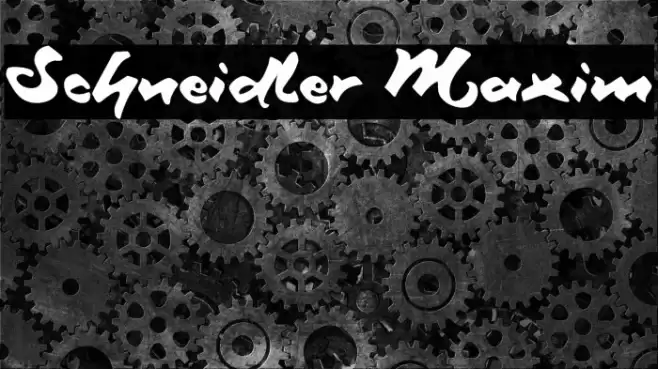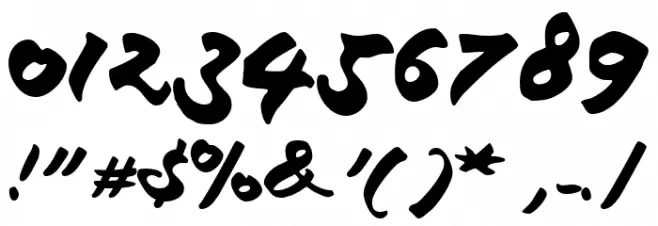
Schneidler Maxim Font
Schneidler Maxim Description
This font features a bold and dynamic script style with a strong calligraphic influence. The characters are fluid and connected, giving a sense of movement and elegance. The uppercase letters are particularly expressive, with sweeping curves and flourishes that add a decorative touch. The lowercase letters maintain a consistent flow, enhancing readability while retaining the artistic flair. The numerals are robust and match the overall style, making them suitable for impactful displays. Special characters are designed with the same attention to detail, ensuring a cohesive look across all glyphs.
A bold, calligraphic script font with dynamic, flowing characters from Uncategorized fonts.